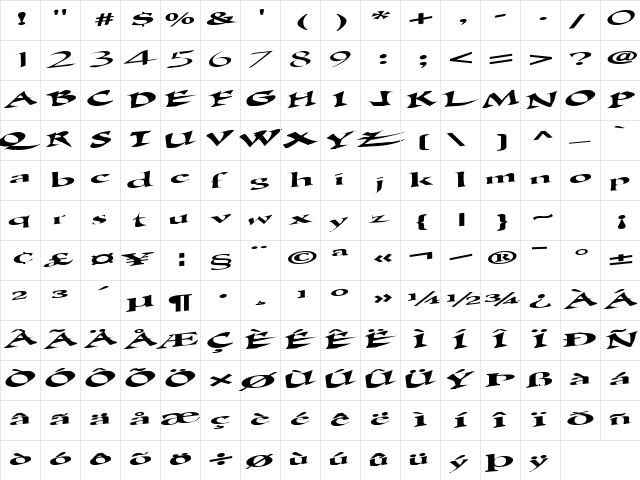
GlobeTrotterPlain20 Regular
Design Context for GlobeTrotterPlain20 Typeface
GlobeTrotterPlain20 is a composed and adaptable typeface that performs quietly and consistently across a wide range of design contexts.